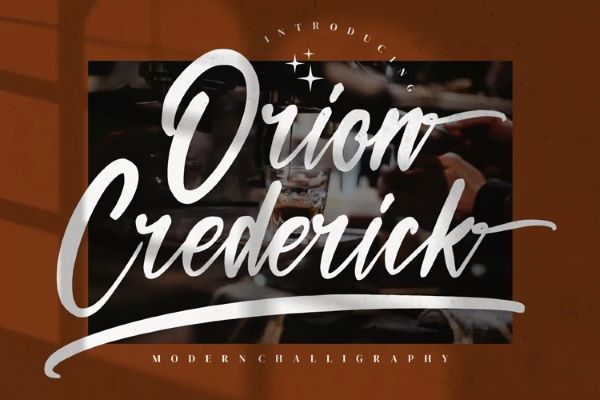
Orion Crederick Font
Orion Crederick Font is a Calligraphy Font by Integritype Studio — a graceful blend of hand-drawn lines and modern design principles that produces smooth, delicate curves with intricate detail in every stroke. Its romantic and luxurious appearance commands attention naturally, bringing a timeless artistic authority to any layout it graces.